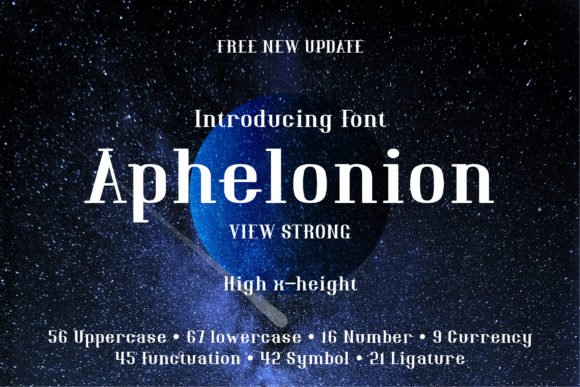
Introduction to Aphelonion Font
Aphelonion is a simple and neat serif font.
Why Choose Aphelonion Font?
Aphelonion Font offers exceptional quality and versatility, making it a valuable addition to your design toolkit. Whether you’re creating for personal projects or commercial use, Aphelonion Font delivers professional results.